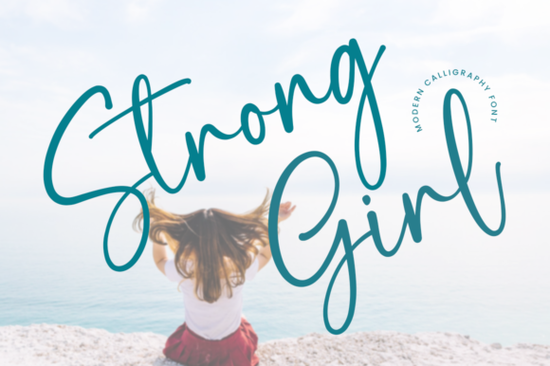
If you're looking for a script font that feels both graceful and grounded something that adds quiet confidence without shouting then the Strong Girl Font is worth your attention. It’s not overly ornate or fussy, but it carries presence: soft curves, balanced spacing, and subtle swashes that give hand-lettered warmth to digital projects. Designers and crafters who work with quotes, apparel, greeting cards, or embroidery often tell us they need fonts that feel personal but still print cleanly and this one fits that need well.
What kind of projects does Strong Girl work best for?
This font shines in contexts where tone matters as much as legibility. Think: minimalist baby onesies with “Brave Little One,” wedding vow books, boutique packaging for self-care brands, or even small-batch stickers with affirming phrases like “I am enough.” Because it’s PUA encoded, every alternate character including ligatures and decorative swashes is accessible right from your keyboard (no complex glyph panels needed). That makes it practical for quick edits in Canva, Cricut Design Space, or Adobe Illustrator.
It’s also part of Creative Fabrica’s Creative Embroidery Lettering class, which means it’s been tested and optimized for stitch files. If you’re digitizing for machine embroidery or sharing designs with others who do you’ll appreciate how smoothly the letterforms translate into thread paths without thin breaks or awkward joins.
How does it compare to other popular script fonts?
Unlike bolder, high-contrast scripts like American Signature Font, Strong Girl leans into lightness and flow rather than dramatic thick-thin variation. It’s more relaxed than Masterline Calligraphy Font, yet more intentional than playful options like Mickey Mouse Font. If you’ve tried Amberly Route Font and liked its rhythm but wanted something slightly more refined for mature audiences, Strong Girl is a natural next step.
You’ll find it especially useful alongside serif or clean sans-serif pairings like using it for a headline over Montserrat or Lora body text. It holds up well at medium sizes (24–60 pt), and scales nicely for Instagram story text or printable wall art.
Is it beginner-friendly?
That said, it’s not a “drag-and-drop” all-caps display font. For best results, avoid stretching letters or forcing tight tracking. Let the natural spacing breathe it’s part of what gives Strong Girl its calm authority.
Who tends to get the most value from it?
- Print-on-demand sellers using platforms like Printful or Redbubble especially those focusing on empowerment-themed apparel, journals, or home decor.
- Small business owners designing their own social media graphics, email headers, or product labels without hiring a designer each time.
- Embroiderers and sewists building custom monogram sets or quote-based hoop art.
- Etsy crafters bundling digital downloads (e.g., “Confidence Quote Pack” or “Motherhood Script Bundle”) where consistent, elegant typography builds trust.
One thing users mention repeatedly: it doesn’t feel trendy in a fleeting way. You won’t look back in six months and think, “Why did I pick that font?” It sits comfortably between timeless and current like a well-cut blazer rather than a seasonal accessory.
Before you download or purchase
Here’s a quick checklist to help you decide:
- ✅ You need a script font that reads clearly at small-to-medium sizes (not just for giant headlines).
- ✅ You want built-in swashes and alternates without needing advanced font tools.
- ✅ Your projects include embroidery, vinyl cutting, or printable paper goods not just screen-only use.
- ✅ You prefer fonts with gentle contrast and smooth curves over sharp angles or heavy embellishment.
- ❌ You’re looking for ultra-bold, graffiti-style, or highly decorative display fonts (this isn’t that).